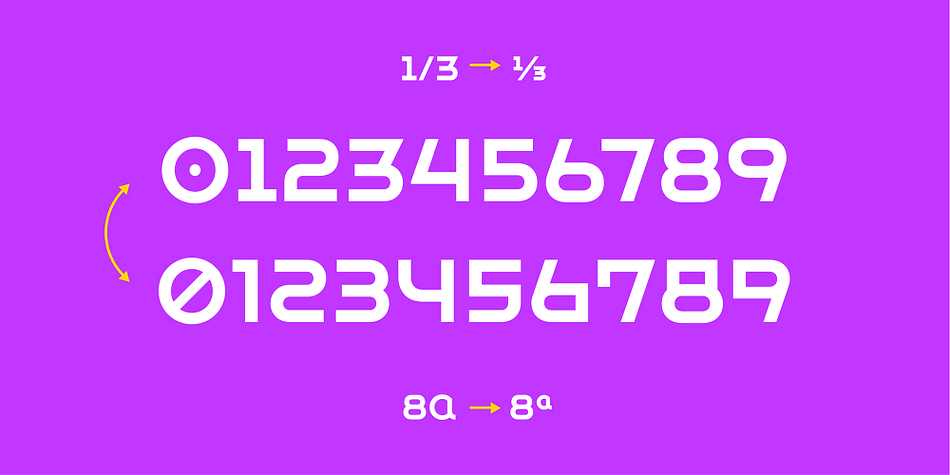
Stimul
Designed by Ivan Petrov, Stimul is a display sans font family. This typeface has four styles and was published by Ivan Petrov.
Stimul is a singular monoline sans serif font family.
The type idea is based on experiments with the grapheme of the letters.
Sitmul contains a huge amount of alternative glyph forms which vary from fairly conventional to very whimsical.
Mix them to enrich your text set by a myriad of unpredictable combinations.
The font family consists of four typefaces with two different styles in each: uppercase and lowercase.
Each typeface also has 5 stylistic sets and an alternative set of figures.
The font provides multilingual support: Western Latin, Central European, Turkish, Baltic and Cyrillic.
Sitmul is perfect for short texts, headlines, posters, logotypes and so on.
Using Stimul you can always expect the unexpected which will definitely stimulate your creativity!